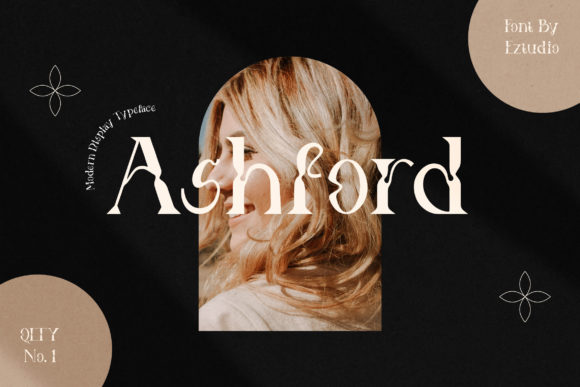
Welcome to the realm of typography, where letters dance and words take on a life of their own. Step into the spotlight with Ashford Font, a display font that exudes character and commands attention. Designed by the creative minds at eztudio, Ashford is not just a font; it's a statement.
Picture this: a rap concert, the beat drops, and the crowd erupts. The music throbs, the energy is electric, and the lyrics flow like liquid fire. Now, imagine those lyrics rendered in the bold, audacious strokes of Ashford Font. The words become larger than life, pulsating with rhythm and energy. They leap off the page, demanding your attention, refusing to be ignored.
With its thick, wavy letters, Ashford Font embodies authenticity and raw power. It's the perfect choice for any project that demands impact and individuality. Picture your designs adorned with Ashford's chunky, playful characters. Whether it's a children's activity book, a school project, or a social media post, Ashford adds a touch of magic that makes your words come alive.
Imagine the smiles on children's faces as they explore the vibrant world of Ashford Font. The letters, like playful waves, invite them on an adventure, encouraging creativity and imagination. And for school projects, Ashford transforms dull reports and presentations into dynamic, engaging masterpieces. It's the font that makes learning fun and memorable.
But Ashford's prowess extends beyond the classroom. It's the perfect choice for businesses looking to make a lasting impression. Social media posts, flyers, and advertisements take on a new life when adorned with Ashford's bold, eye-catching style. It's the font that cuts through the noise, grabbing attention and leaving a lasting impact.
So, why settle for ordinary when you can have extraordinary? Embrace the power of Ashford Font and let your words dance off the page. Ignite your designs with its authentic, energetic spirit and watch as they come alive with a captivating charm that leaves your audience spellbound.
Don't just use a font; make a statement. Choose Ashford Font and let your words command the spotlight.